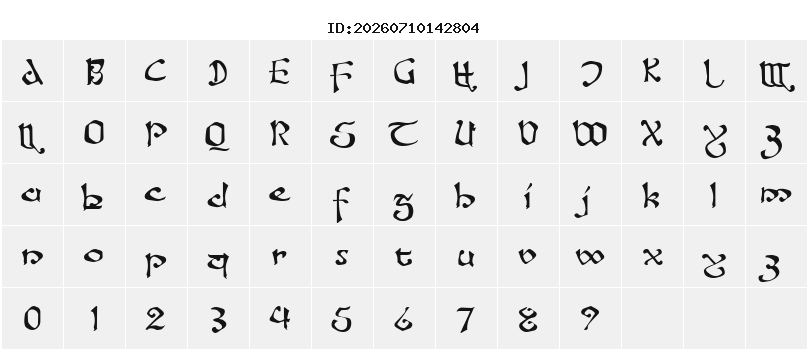
Fanjofey AH Preview
• Font Name: Fanjofey AH
• Designer: Andreas Höfeld
• Manufacturer: Fontgrube AH
• Description: This is a Tengwar lookalike font, AFAIK the first one of its kind. What is Tengwar anyway? It's an alphabet that John R. R. Tolkien devised for his trilogy "The Lord of the Rings". It is meant to be the way how the Elvish language of Quenya is written. Tengwar consists of consonants, vowels are marked by diacritic symbols (little dots and strokes). A number of digital fonts already exist for this alphabet. I tried to make a latin alphabet reminiscent of Tengwar letters. You can find more information on the Tengwar alphabet e. g. on: http://www.geocities.com/fontmaster.geo/tengwar/index.htm (Dan Smith's site, who makes some Tengwar fonts himself)